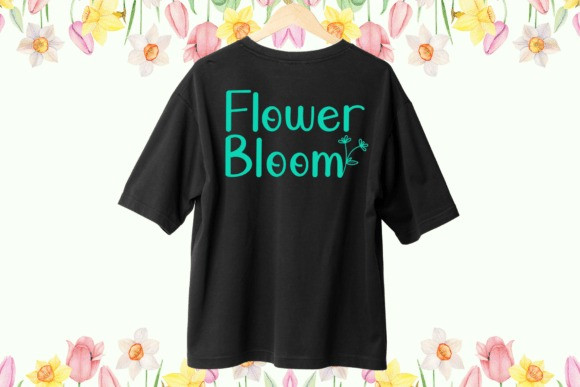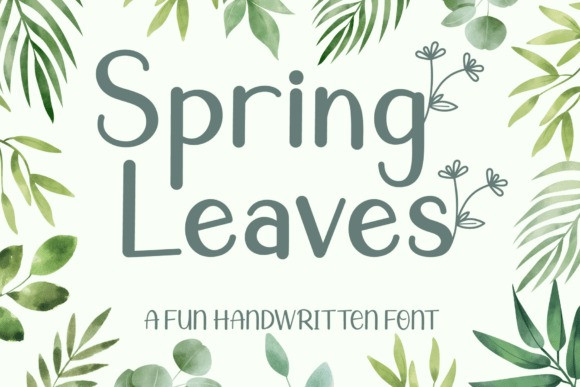
Spring Leaves Font
Spring Leaves Font, a charming handwritten typeface that combines natural elements with a playful vibe. With its organic style and cheerful vibes, this font is made for crafters, content creators, and anyone looking to bring spring magic into their designs. Perfect for kids’ themes, DIY projects, or seasonal posts. Spring Leaves will make your creativity bloom!